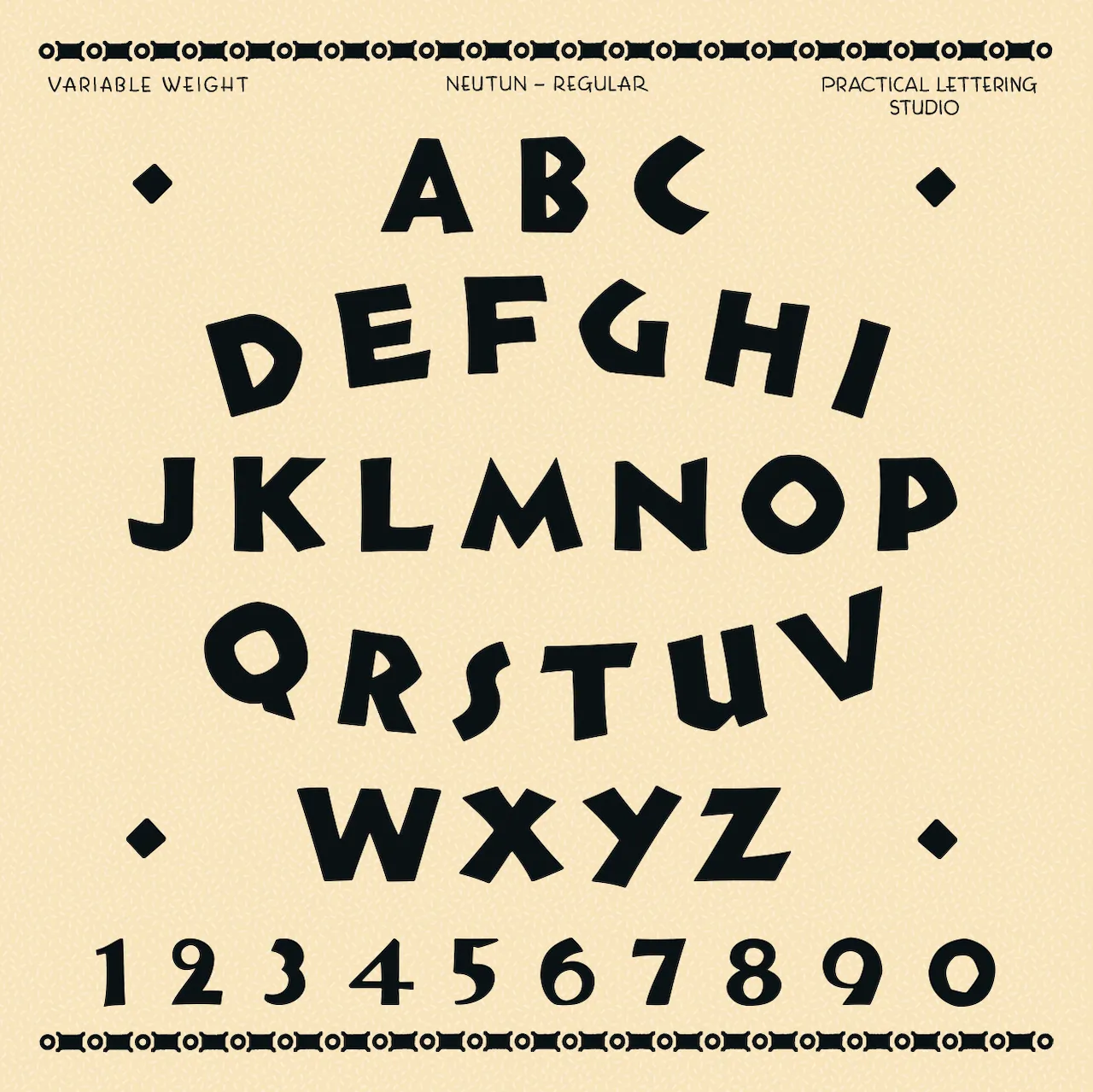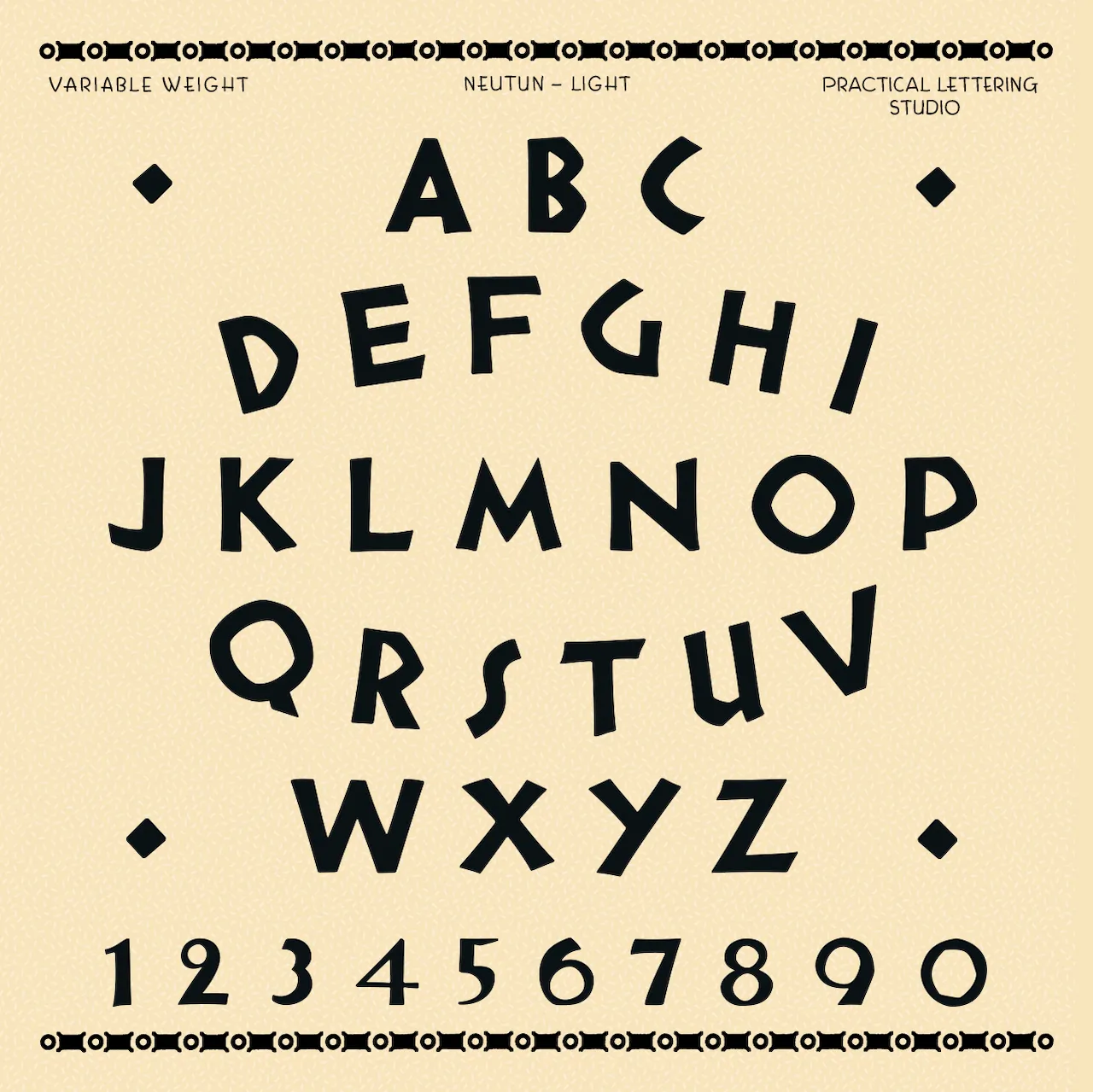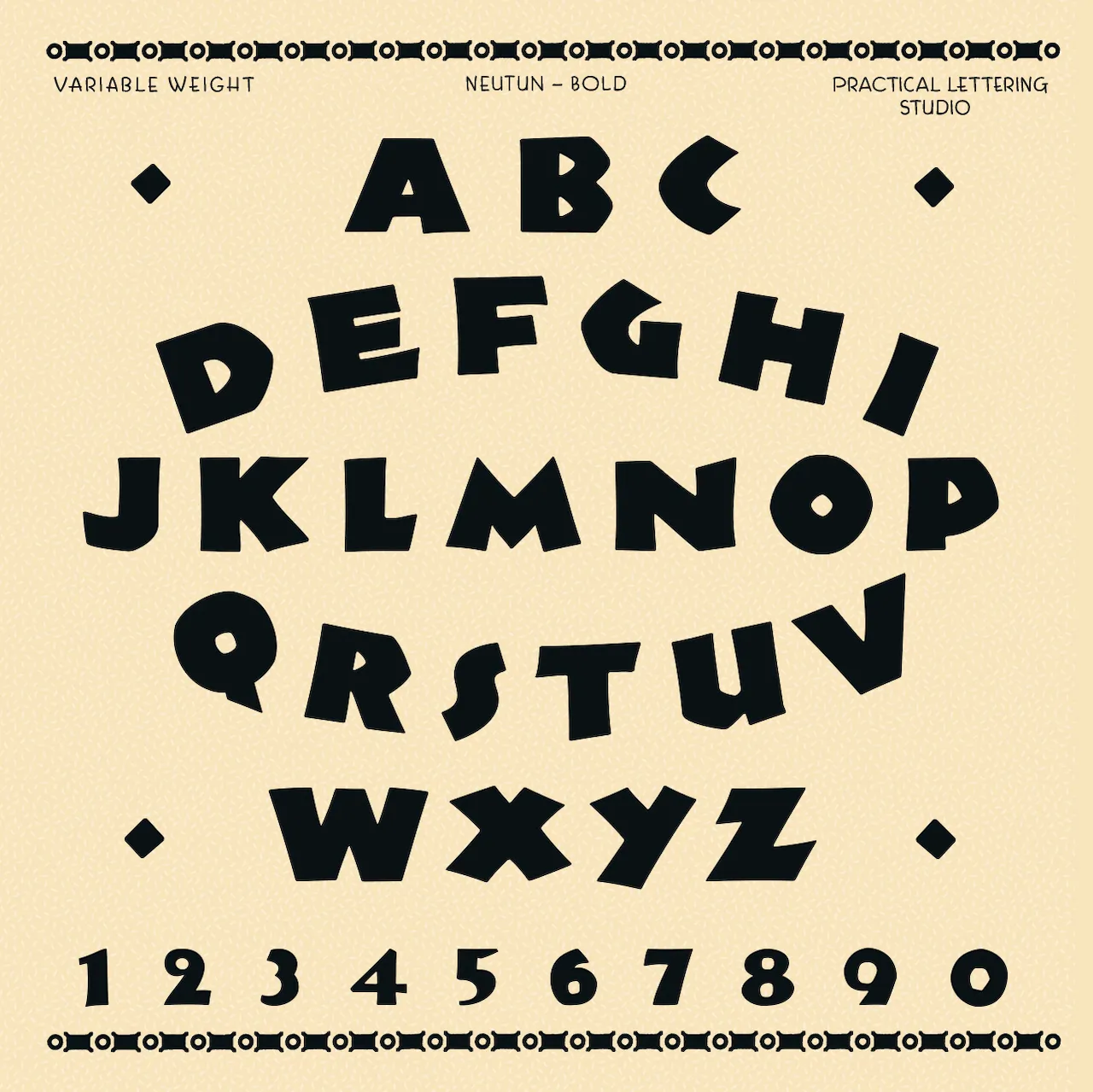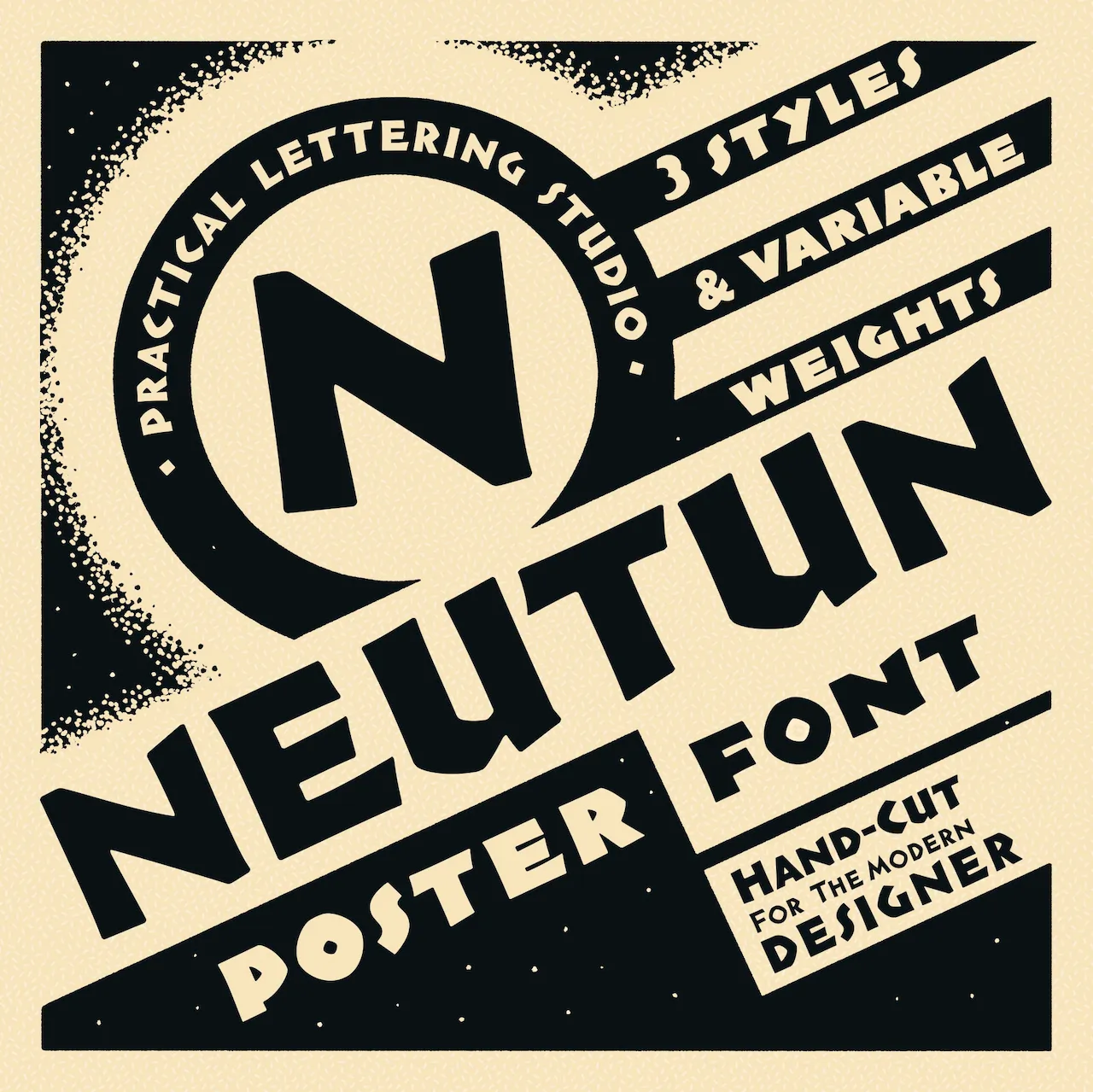
Koch Neuland [Rudolf Koch]
A listing and comparison of various digital implementations of Koch's German expresionist Neuland typeface from 1923. Rudolf Koch chiseled an all caps typeface directly from metal and called it Neuland (Gebr. Klingspor). This experimental typeface has been copied and revived over and over again. It was even used as the typeface for Jurassic Park. A non-exhaustive list includes
• Neuland and Neuland Star (Linotype). Linotype owns the trademark to Neuland. This typeface is possibly identical to Adobe's Neuland Std.
• Othello MT (Pierpont at Monotype, 1928-1929). The digital version is by Carl Crossgrove and Steve Matteson.
• URW Neuland.
• Albertus MT (Berthold Wolpe at Monotype, 1932).
• Informal 011 Roman and Black (Bitstream).
• Newfish (PrimaFonts).
• ITC Outback (based on Bob Alonso's interpretation at Photo-Lettering).
• FFD Neuland (Doug Olena, Keystrokes, 1995).
• PLS Neutun (2026) by Noah Johnson at Practical Lettering Studio.
• Culpepper (George Ryan, Galapagos): a family with lower cases added and glyphs freely interpreted.
• Newfoundland (Corel).
• N691 Deco (Softmaker).
• AINeuland (Lester Dore at Alphabets Inc).
• Tribeca (David Rakowski), an outline version, as in the Jurassic Park movie font. Others in this category include BD Jurassic Black (Streetwise Software), Jurassic (Computer Support Corporation, 1996), Jurassic (COSMI, 1993), Jurassic (WSI, 1993), JurassicNormal (Elfring, 1993), JurassicPark (Sierra On-Line, Inc), Jurassic (Allen R. Walden), Tambor-Inline (Casteletype), FFD Neuland Inline (Keystrokes).
• Tambor (Light, Black, Inline and Adornado) (Jason Castle, Castletype).
• Rudolf (Jason Castle, Castletype).
• BrideOfTheMonster (Harold Lohner, 1998).
• Newland Black (Andrey Mel'man).
• P22 Koch Nueland (sic) (Richard Kegler, P22, 2000).
• Jungle Fever NF (Nick Curtis) and Blandford Woodland NF (2005, Nick Curtis).
• On Kochs Roots (Manfred Klein, 2002): a lower case and hair-serifed extension.
• KochNeu-ExtraBlack (Manfred Klein, 2003). Now called New Country.
• Neuerland (2010, Ian Lynam).
• OPTI Neuland (by Castcraft).
• (Metal typefaces by Baltimore Type). Mac McGrew: Neuland and Neuland lnline were originally handcut by Rudolf Koch for Klingspor foundry in Germany, about 1923. Being handcut, each size differed somewhat from others, and the lnline differed from the regular. The copies cast by Baltimore Type were recut by pantagraph from one size of the regular. and thus are uniform from one size to another. The white inline was added to this same recutting, and is slightly wider than in the German version.
Shown are some of the versions of Koch's Neuland. Indeed, there is no true "original", because each of Koch's type sizes comes with its own peculiarities (recall that each was cut directly in metal). The Linotype version, which is supposed to be the digital counterpart of the "original", is a bit too "clean". The Softmaker face, N691 Deco, is probably closer to Koch's original cuts, as most of Softmaker's historical typefaces aspire to be true revivals. However, only AI Neuland and FFD Neuland have the pointy M's that we find in the "Encyclopedia of Typefaces" of Jasper, Berry and Johnson, so go figure. The P22 typeface and Klein's typeface have K's with horizontal right upper arms and U's that hang together similarly, so they are in a category by themselves and one may well have inspired the other.